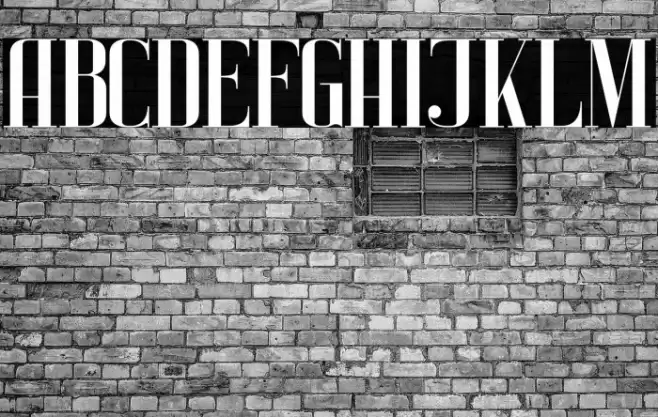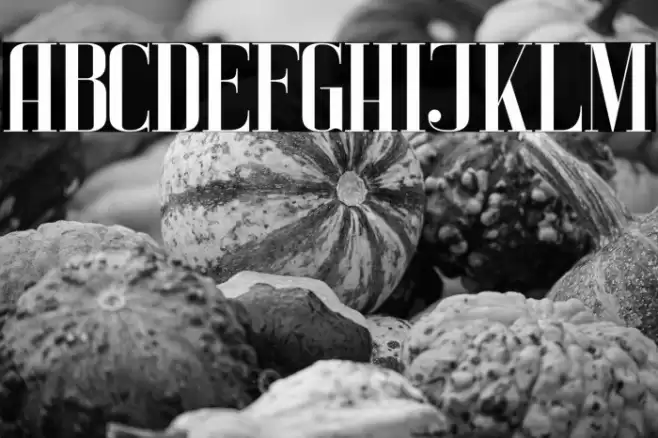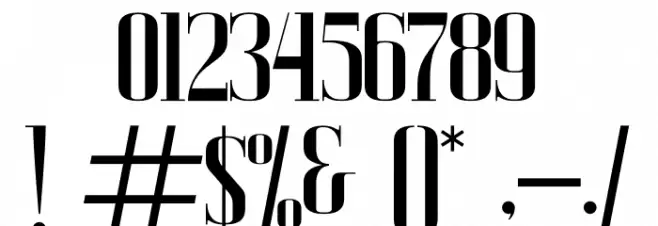
Alison finch Font
Alison finch Description
This font exhibits a striking and elegant design characterized by its tall, narrow letterforms and high contrast between thick and thin strokes. The uppercase letters are particularly elongated, giving a sense of sophistication and modernity. The lowercase letters maintain a consistent style, with unique features such as the curved tail on the 'g' and the distinctive loop of the 'f'. The numerals are equally stylish, with a uniform height that aligns well with the uppercase letters. Special characters are designed with the same attention to detail, ensuring a cohesive look across all glyphs. This font is ideal for projects that require a touch of elegance and modern flair.
A tall, narrow font with high contrast, perfect for elegant and modern designs from Uncategorized fonts.
- Proposed Projects: Ideal for fashion magazines, luxury branding, high-end product packaging, and elegant invitations.